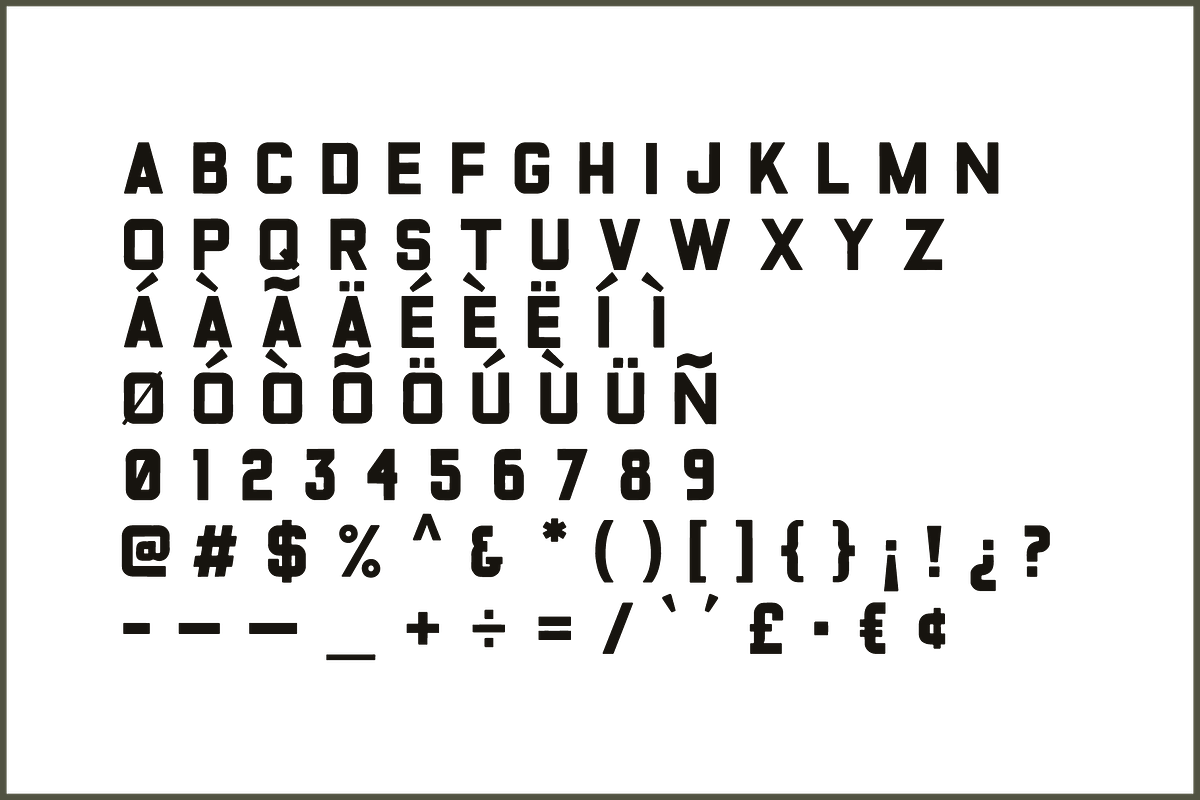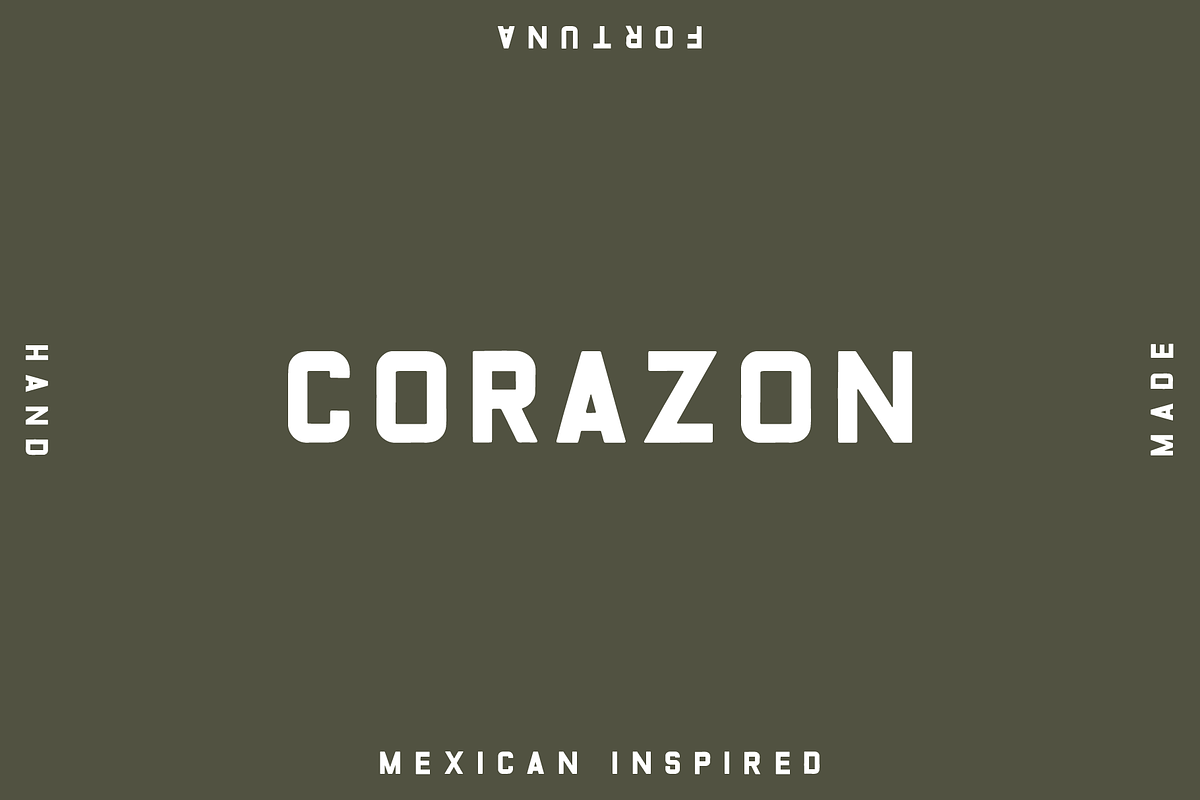
Corazon: Hand Drawn Sans Serif
CORAZON is inspired by vintage Mexican hospitality.
You know that tried and true pair of jeans that look good with everything? Corazon is just that. It can fit in as the main character or a secondary. Either way, this font will meet you where you're at.